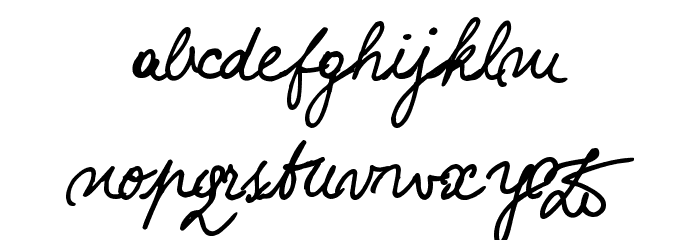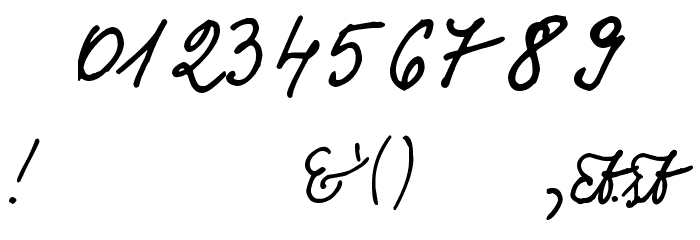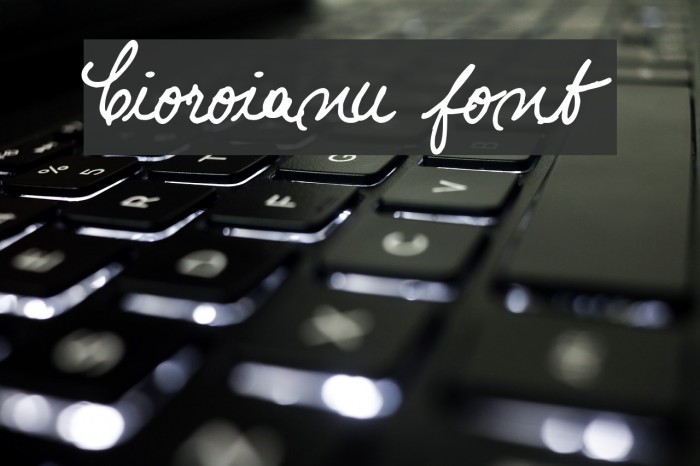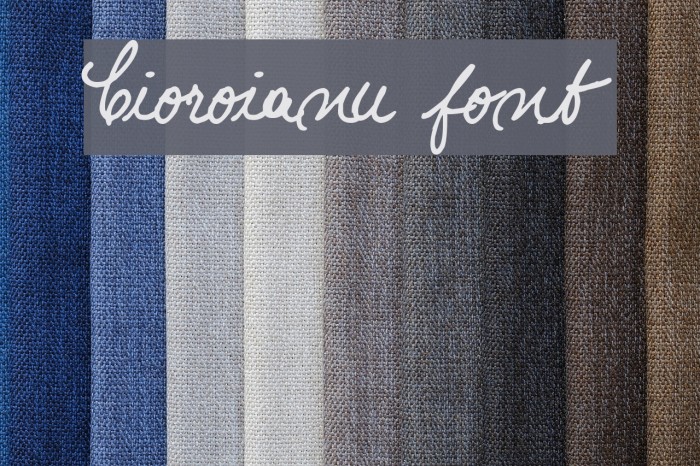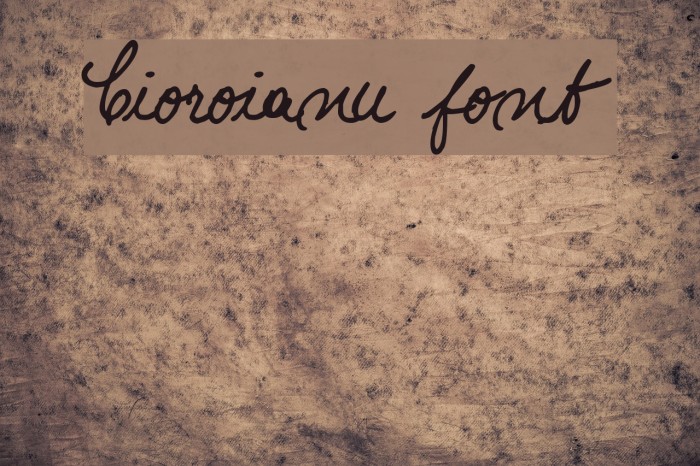
Cioroianu font Font
This font exhibits a flowing, cursive style reminiscent of elegant handwriting. The characters are interconnected, creating a seamless and fluid appearance. The uppercase letters are ornate with intricate loops and swirls, while the lowercase letters maintain a consistent, graceful flow. The numerals and special characters are designed to match the overall aesthetic, with a playful yet sophisticated touch. The font's style is both artistic and legible, making it suitable for creative projects that require a personal and artistic flair.
A flowing, cursive font with elegant, interconnected characters.
- Proposed Projects: Ideal for wedding invitations, greeting cards, personal branding, and artistic projects that require a touch of elegance and personality.
- Category: Script
- Character Spacing: Tight
- Use Case: Logos, Invitations, Artistic projects